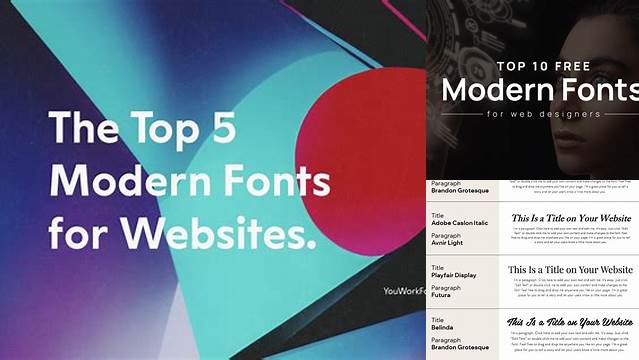
Modern Fonts: Best Choices For Website Design
Choosing the right fonts for your website is crucial. It's like picking the perfect outfit â you want it to look good, feel good, and most importantly, communicate the right message. Modern fonts can breathe life into your website, making it visually appealing and highly readable. But with so many options out there, where do you even begin? Let's dive into the world of modern fonts and explore how to make your website stand out from the crowd.
What are Modern Fonts?
Before we jump into specific examples, letâs define what we mean by "modern fonts." Generally, modern fonts are characterized by their clean lines, simplicity, and a contemporary feel. They often include sans-serif fonts, which lack the small decorative strokes (serifs) found in traditional fonts like Times New Roman. However, modern fonts can also include serif fonts that have been updated with a more streamlined and minimalist aesthetic. Think of fonts that feel fresh, current, and designed with today's digital landscape in mind. These fonts prioritize readability on screens and contribute to a website's overall visual appeal.
Characteristics of Modern Fonts
- Clean Lines: Modern fonts typically feature clean, crisp lines that make them easy to read on various screen sizes. This is especially important for websites, where visitors might be viewing content on desktops, tablets, or smartphones.
- Simplicity: Modern fonts embrace simplicity in their design. They avoid excessive ornamentation and focus on clarity and legibility. This minimalist approach helps to create a clean and uncluttered look for your website.
- Geometric Shapes: Many modern fonts incorporate geometric shapes into their design, giving them a structured and contemporary feel. This can add a sense of sophistication and precision to your website's typography.
- High Readability: Readability is a key characteristic of modern fonts. They are designed to be easy on the eyes, even when used for large blocks of text. This ensures that your website's content is accessible and engaging for visitors.
- Versatility: Modern fonts are versatile and can be used in a variety of design contexts. They work well for headlines, body text, and even logos. This makes them a great choice for websites that want to maintain a consistent and cohesive visual identity.
Why Modern Fonts Matter for Website Design
Modern fonts play a significant role in shaping the overall user experience of your website. They influence how visitors perceive your brand, how easily they can read your content, and how long they stay on your site. Using modern fonts can make your website look professional, up-to-date, and trustworthy. Outdated or poorly chosen fonts, on the other hand, can make your website look amateurish and drive visitors away. Therefore, selecting the right fonts is an investment in your website's success.
The Psychology of Fonts
Fonts have a subtle but powerful way of influencing our emotions and perceptions. Different font styles evoke different feelings and associations. For instance, a bold, sans-serif font might convey a sense of strength and modernity, while a delicate, serif font might suggest elegance and tradition. When choosing fonts for your website, it's essential to consider the psychological impact they will have on your audience. Think about the message you want to communicate and select fonts that align with your brand's personality and values. A well-chosen font can reinforce your brand identity and create a lasting impression on visitors.
Top Modern Font Choices for Websites
Okay, let's get to the fun part â the fonts themselves! There are tons of incredible modern font options out there, so I've narrowed down some of the best to get you started. These fonts are popular for a reason: they look great and work well across various devices and browsers.
Sans-Serif Superstars
Sans-serif fonts are often the go-to choice for modern website design because of their clean and minimalist appearance. They offer excellent readability, making them ideal for body text and headlines alike. Let's take a closer look at some top sans-serif contenders:
- Helvetica Neue: This is a true classic in the world of typography. Helvetica Neue is known for its clean, neutral design, making it highly versatile and suitable for a wide range of websites. Its legibility and timeless appeal make it a staple for many designers. Whether you're designing a corporate website or a personal blog, Helvetica Neue can help you create a polished and professional look. The font's neutrality ensures that it doesn't overpower your content, allowing your message to take center stage.
- Open Sans: Developed by Steve Matteson, Open Sans is another incredibly popular sans-serif font designed with readability in mind. Itâs a great option for body text, especially on screens. Its open forms and neutral yet friendly appearance make it a favorite for websites focused on user experience. Open Sans is widely used across the web, and its popularity is a testament to its versatility and legibility. If you're looking for a font that's both accessible and visually appealing, Open Sans is an excellent choice.
- Lato: Lato, designed by Ĺukasz Dziedzic, is a sans-serif typeface that combines warmth and clarity. Its semi-rounded details give it a friendly feel, while its strong structure ensures readability in various sizes. Lato is a versatile font that works well for both headlines and body text, making it a great option for websites that want to strike a balance between professionalism and approachability. The font's subtle curves add a touch of personality without sacrificing clarity, making it a popular choice among designers.
- Montserrat: If you're looking for a font with a bit more character, Montserrat is a fantastic option. This geometric sans-serif font, inspired by urban typography in Buenos Aires, has a distinctive and modern vibe. It's perfect for headlines and subheadings, adding a touch of sophistication to your website. Montserrat's strong geometric forms make it stand out, while its overall readability ensures that your message is communicated effectively. This font is a great way to add a touch of urban chic to your design.
- Roboto: Roboto is a neo-grotesque sans-serif typeface family developed by Google. It's widely used in the Android operating system and Google services. Roboto has a dual nature. It has a mechanical skeleton and the forms are largely geometric. At the same time, the font features friendly and open curves. Roboto is a very versatile font that can be used for body text, headlines, and UI elements. Its clean lines and modern appearance make it a great choice for websites that want to convey a sense of innovation and technology.
Modern Serif Sensations
While sans-serif fonts often steal the spotlight in modern design, there's definitely room for serifs too! The key is to choose serif fonts that have been updated with a modern twist â think cleaner lines and less ornate details.
- Playfair Display: Playfair Display is a transitional serif typeface designed by Claus Eggers Sørensen. It's a great choice for headlines and titles, bringing a touch of elegance and sophistication to your website. Its high contrast and delicate serifs make it stand out, while its overall readability ensures that your message is communicated effectively. Playfair Display is perfect for websites that want to convey a sense of luxury and refinement.
- Merriweather: Merriweather, designed by Sorkin Type, is a serif typeface family designed to be highly readable on screens. It features slightly condensed letterforms, a large x-height, and sturdy serifs. This makes it an excellent choice for body text, especially in digital environments. Merriweather's readability and classic appeal make it a versatile option for websites that want to balance tradition and modernity. It's a font that feels both familiar and fresh, making it a great choice for a wide range of design projects.
- Lora: Lora is a well-balanced serif typeface with roots in calligraphy. Its contemporary feel makes it an excellent choice for body text, adding a touch of sophistication to your website's content. Lora's flowing letterforms and elegant serifs create a sense of rhythm and visual interest. This font is perfect for websites that want to convey a sense of artistry and craftsmanship. Its readability and distinctive personality make it a standout choice for designers.
- Arvo: Arvo is a geometric slab-serif typeface suited for both print and screen. Itâs a robust and versatile font that can be used for headlines, body text, and even logos. Arvo's strong geometric forms give it a modern and confident appearance. It's a great choice for websites that want to convey a sense of stability and reliability. The font's versatility makes it a valuable asset for any design project.
Unique and Creative Fonts
If you're looking to make a bold statement, there are tons of unique and creative fonts out there. These fonts can add personality and flair to your website, helping you stand out from the competition. However, it's important to use these fonts sparingly and strategically, as they can sometimes sacrifice readability for style.
- Bebas Neue: Bebas Neue is a sans-serif typeface family designed by Ryoichi Tsunekawa. It's known for its tall, condensed letterforms, giving it a modern and impactful appearance. Bebas Neue is a popular choice for headlines, posters, and branding materials. Its sleek and minimalist design makes it a great option for websites that want to convey a sense of modernity and sophistication. However, it's best used sparingly, as its condensed letterforms can be challenging to read in large blocks of text.
- Oswald: Oswald is a sans-serif typeface family designed by Vernon Adams. It was initially redesigned and reformed to better fit the pixel grid of standard digital screens. Oswald is widely used for headlines and titles. Its strong, condensed letterforms make it a great choice for websites that want to make a bold statement. The font's modern and energetic appearance can add a sense of dynamism to your design. However, like Bebas Neue, it's best used sparingly to ensure readability.
- Raleway: Raleway is an elegant sans-serif typeface family, originally designed by Matt McInerney as a single thin weight. It was later expanded into a nine-weight family by Pablo Impallari and Rodrigo Fuenzalida. Raleway has a distinctive and sophisticated appearance, making it a popular choice for headlines and logos. Its delicate letterforms and geometric structure give it a unique and modern feel. Raleway is a great option for websites that want to convey a sense of elegance and style.
- Poppins: Poppins is a geometric sans-serif typeface family. It's one of the most popular fonts on Google Fonts, thanks to its clean lines and modern appearance. Poppins is a versatile font that can be used for headlines, body text, and UI elements. Its geometric forms and open letterforms make it highly readable, while its overall design gives it a friendly and approachable feel. Poppins is a great choice for websites that want to convey a sense of clarity and modernity.
Tips for Choosing the Right Fonts
Choosing the right fonts for your website can feel overwhelming, but it doesn't have to be! Here are some tips to help you make the best choices for your brand and audience.
Consider Your Brand Identity
Your fonts should reflect your brand's personality and values. Think about what message you want to communicate and choose fonts that align with your brand's aesthetic. Are you going for a modern, minimalist look? Or something more classic and elegant? Your font choices should be consistent with your overall brand identity.
Think About Readability
Readability is key, especially for body text. Choose fonts that are easy to read on screens, even at smaller sizes. Avoid overly decorative or stylized fonts for large blocks of text. Sans-serif fonts are often a safe bet for body text, but modern serif fonts can also work well if chosen carefully.
Limit Your Font Choices
A general rule of thumb is to stick to no more than two or three fonts on your website. Using too many fonts can create a cluttered and unprofessional look. Choose one font for headlines and another for body text. You can also use different weights and styles of the same font family to create visual hierarchy and interest.
Test Your Fonts
Before you commit to a font, test it out on different devices and browsers to make sure it looks good. Pay attention to how the font renders at different sizes and resolutions. You can also use online tools to check the legibility and readability of your fonts.
Check Font Licensing
Make sure you have the proper license to use the fonts you choose. Many fonts are free for personal use but require a commercial license for business websites. Be sure to check the licensing terms before using any font on your website to avoid any legal issues.
Where to Find Modern Fonts
So, where can you find these awesome fonts? Luckily, there are tons of resources out there! Here are a few of my favorites:
Google Fonts is a treasure trove of free, open-source fonts that you can use on your website. It offers a vast selection of modern fonts, and it's super easy to integrate them into your site. Plus, Google Fonts are optimized for web use, so you can be sure they'll load quickly and look great on any device.
Adobe Fonts
If you're an Adobe Creative Cloud subscriber, you have access to Adobe Fonts, a library of thousands of high-quality fonts. Adobe Fonts offers a wide range of modern fonts, including many exclusive designs. The integration with Adobe Creative Cloud makes it easy to use these fonts in your design projects.
Font Foundries
Many independent font foundries offer unique and modern fonts that you won't find anywhere else. These foundries often focus on creating high-quality, original typefaces that can help your website stand out. While these fonts often come at a cost, the investment can be worth it for a truly unique and professional look.
Choosing the right modern fonts for your website is a crucial part of creating a visually appealing and user-friendly experience. By considering your brand identity, prioritizing readability, and limiting your font choices, you can create a website that looks great and effectively communicates your message. So, go ahead and explore the world of modern fonts and find the perfect typography to make your website shine!